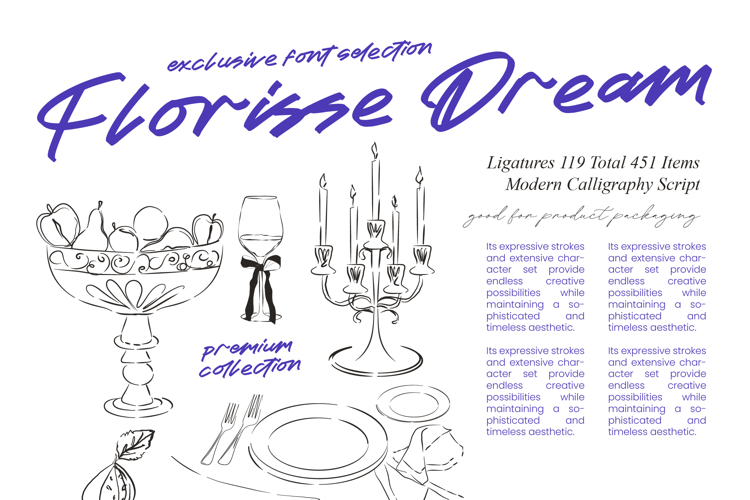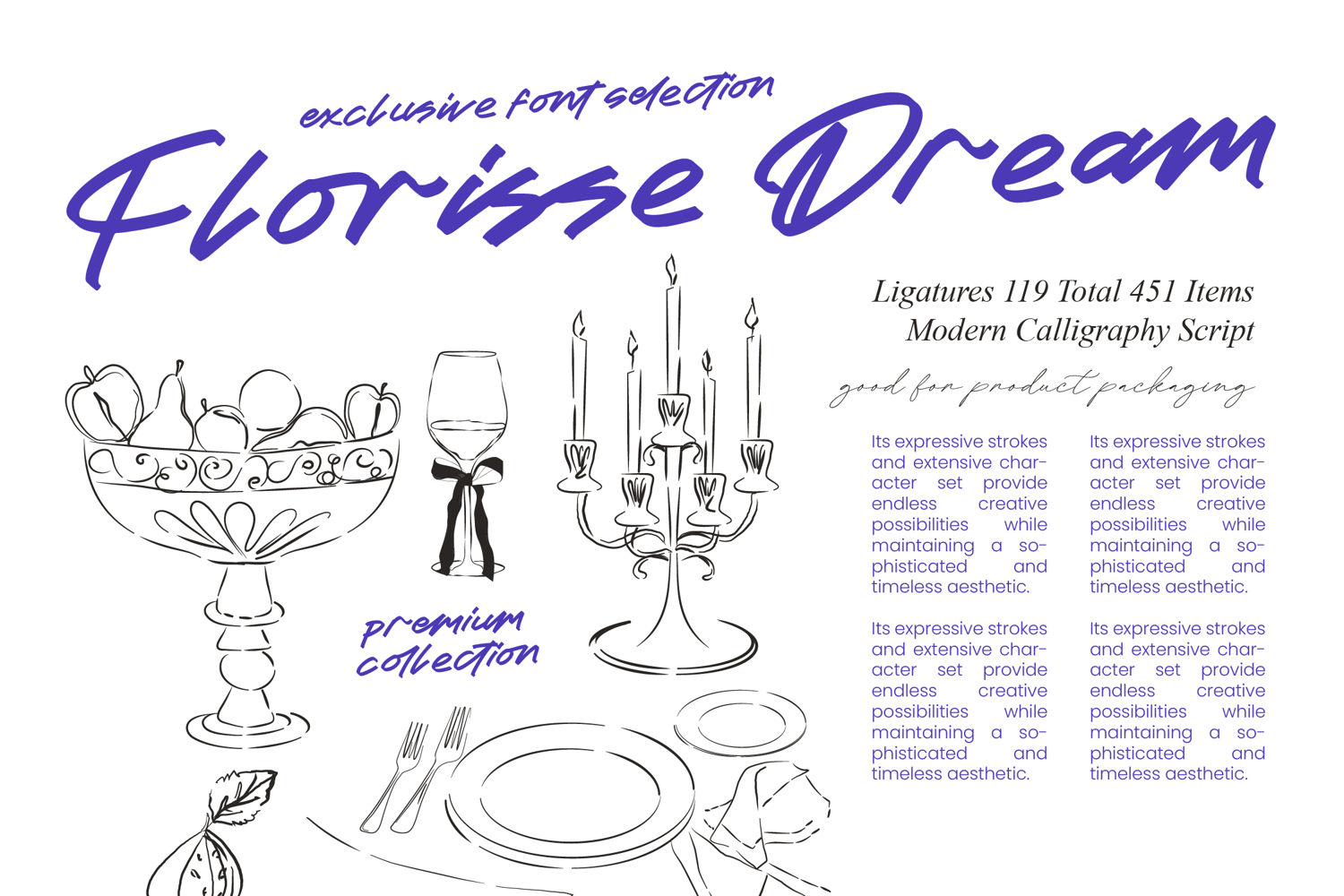
Florisse Dream - Modern Calligraphy Script
Elevate your creative projects with the organic elegance of Florisse Dream - Modern Calligraphy Script, a typeface designed to capture the essence of expressive hand-lettering. This premium font features fluid, rhythmic strokes that bridge the gap between contemporary sophistication and artistic flair. Its sophisticated aesthetic ensures that every word conveys a sense of bespoke craftsmanship, making it a standout choice for designers seeking a human touch in their digital compositions.
Unlock endless possibilities in luxury branding and product packaging with the versatile charm of Florisse Dream - Modern Calligraphy Script. This script is perfect for high-end editorial design, wedding invitations, and fashion lookbooks where a chic, handwritten feel is essential. Whether you are crafting a unique logo identity or designing premium lifestyle labels, its dynamic ligatures and organic flow provide a timeless appeal that resonates with discerning audiences.